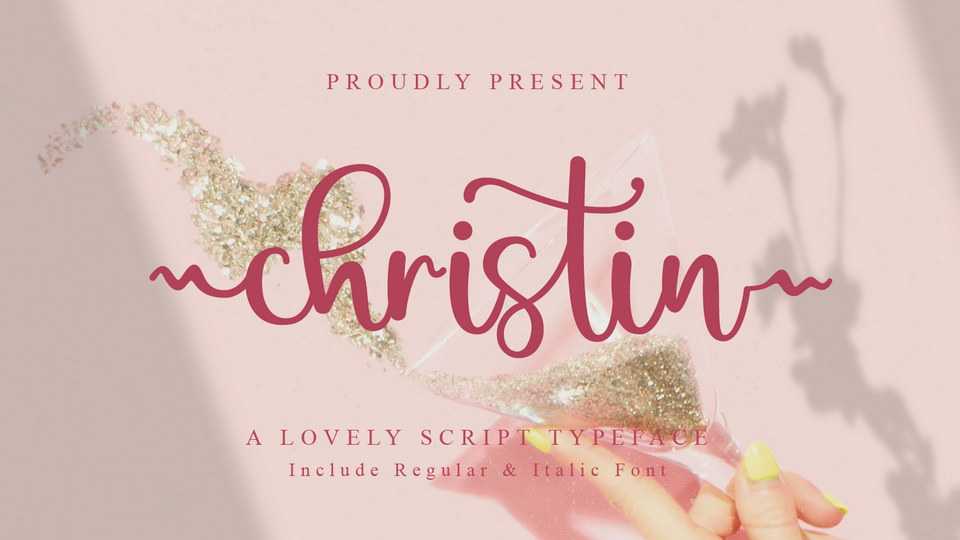
Download Christin font, a lovely and delicate script typeface that exudes elegance and class. Christin font was particularly crafted for those who need a beautiful and refreshing look to their designs.
Designer: Dewi Purwaningrum